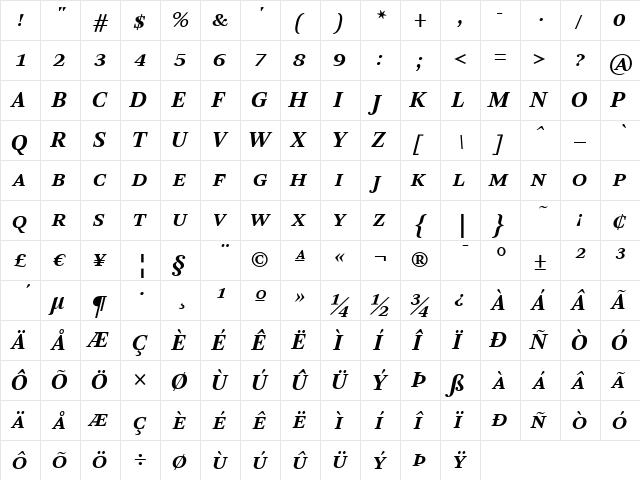
ArnhemSmallCaps Bold Font Preview
ArnhemSmallCaps Bold
Design Context for ArnhemSmallCaps Typeface
ArnhemSmallCaps is a composed and adaptable typeface that performs quietly and consistently across a wide range of design contexts. Its bold stroke weight gives it real presence on the page.